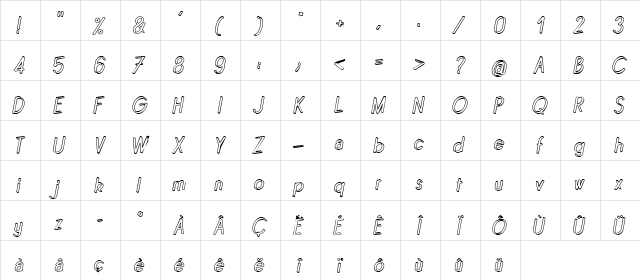
Quincaille Outline Italique
Design Context for Quincaille Typeface
Quincaille brings ornamental detail and strong personality to headlines and identities, where visual impact matters more than quiet functionality.
Font Pairing: Pair with a clean neutral sans-serif for body copy to let Quincaille's character lead without overwhelming the composition.
Pro Tip: Treat Quincaille as the centrepiece of your typographic hierarchy. One strong heading set in a decorative face can carry an entire layout.